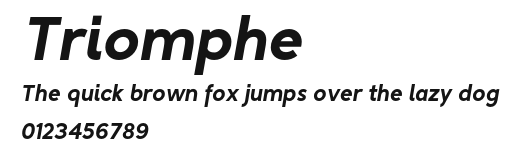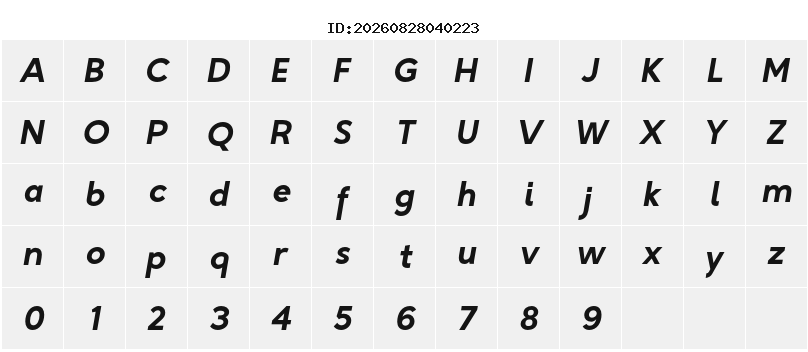
• Designer: Jeremie Dupuis
About Triomphe.otf
Triomphe.otf is a modern, elegant sans-serif font designed for ultimate readability and visual harmony. Perfect for branding, headlines, web design, and print materials.